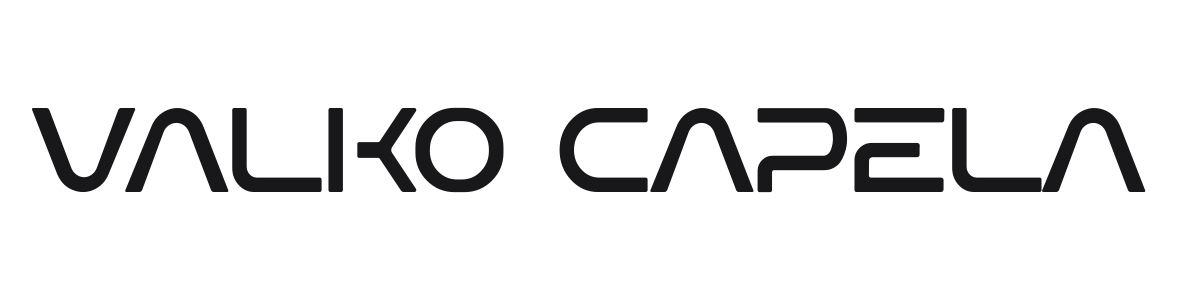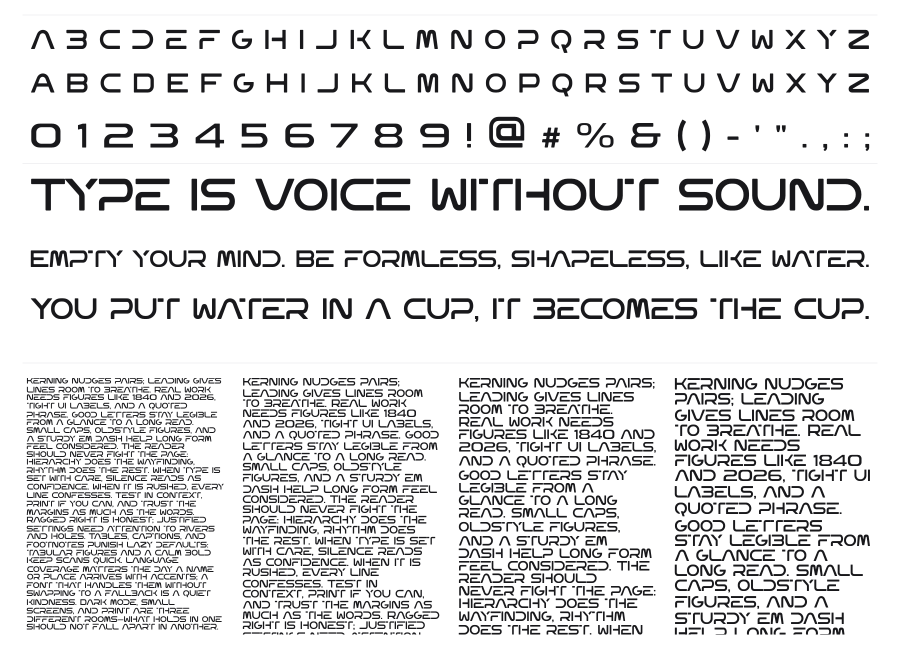
Valko Capela
Valko Capela is a futuristic geometric sans-serif with a wide, confident stance and squared terminals that feel engineered rather than drawn. The characters carry angular cutouts and flat joints that give it a distinct sci-fi quality without tipping into illegibility. It sits comfortably in tech branding, gaming titles, and motion graphics.